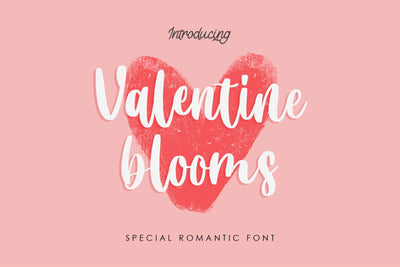
Valentine Blooms
Valentine Blooms is a casual and smooth handwritten script font. It has a playful feel that will turn any Valentine crafting idea into a true standout.